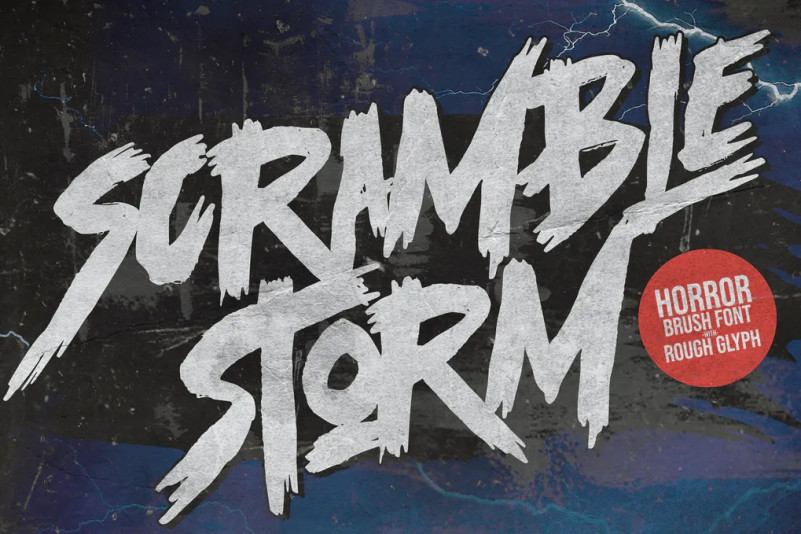
Scramble Storm Font
Meet = Scramble Storm, Bold handmade Rough Brush Font with ligature and Multilanguage support.
Best for halloween poster, horror poster, childrenbook, cartoon, comic etc